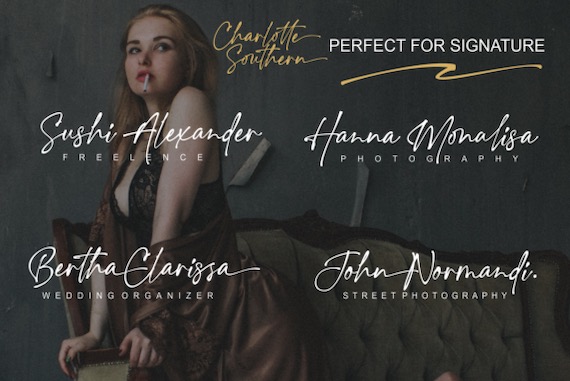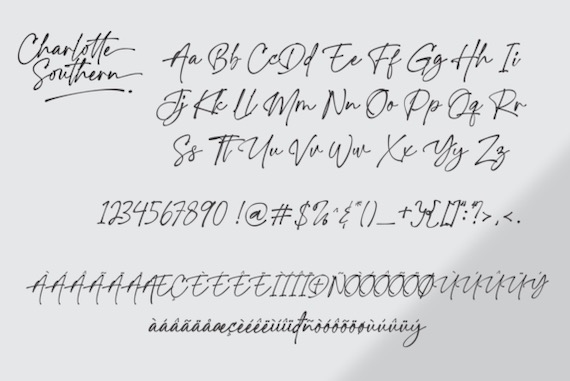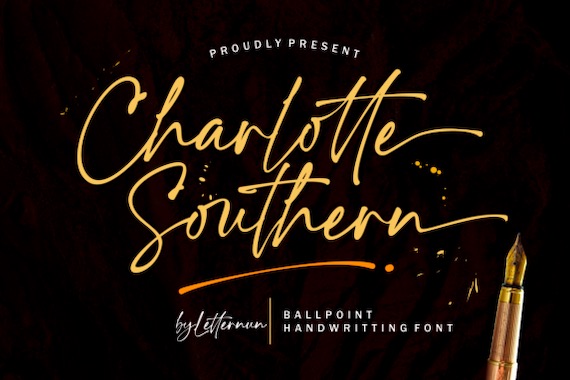
Charlotte Southern Font will take every your creative ideas into a gorgeous design product. Charlotte Southern is an elegant & delicate spectacular handwritten script font along with a little bit quirky and a friendly feel.
Charlotte Southern Handwritten Signature Font
Font family: Charlotte Southern Font